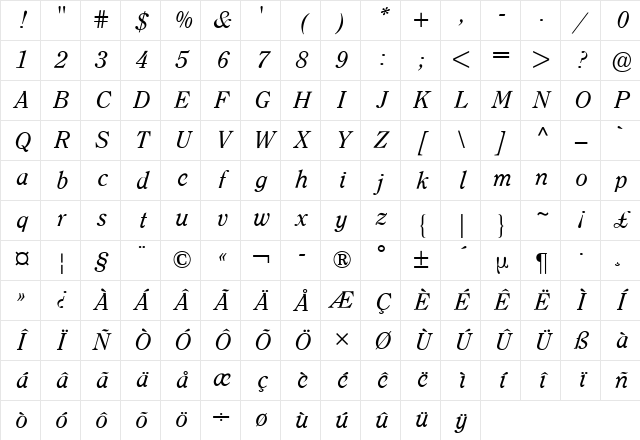
Clearface ITC BQ Regular Italic
Style: Regular Italic
Foundry: COPYRIGHT H. BERTHOLD AG Alle Rechte vorbehalten
Clearface ITC BQ Family
Clearface ITC BQ Regular Italic
Design Context for Clearface ITC BQ
Clearface ITC BQ is a composed and adaptable typeface that performs quietly and consistently across a wide range of design contexts. The slanted form adds forward momentum and visual energy.
Pro Tip: Use Clearface ITC BQ for emphasis, pull quotes, and subheadings where its slanted energy can add rhythm to the layout.
Who designed the Clearface ITC BQ Regular Italic font?